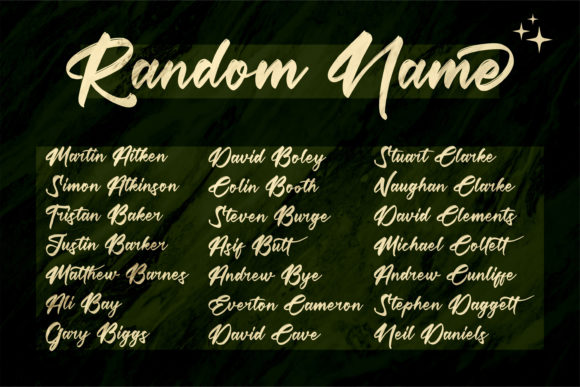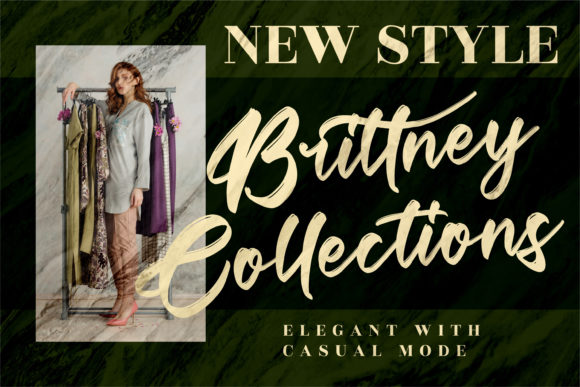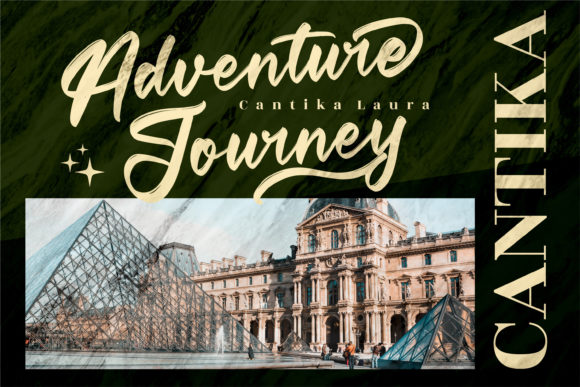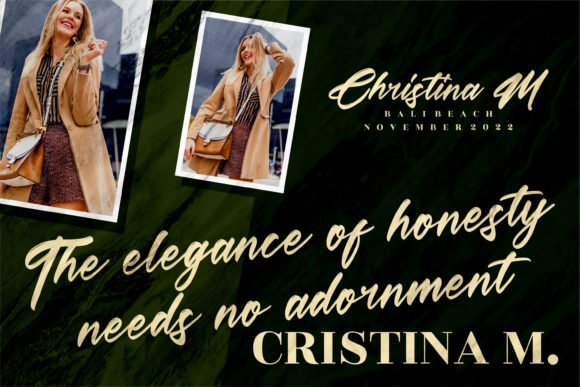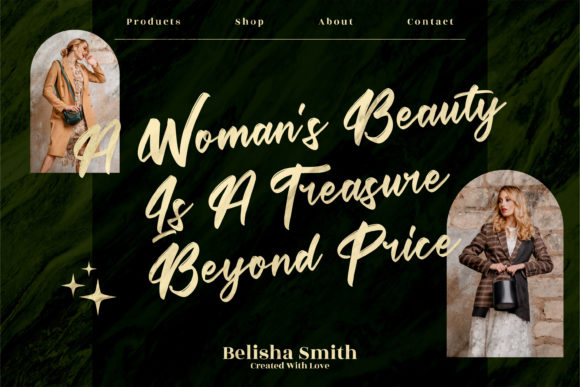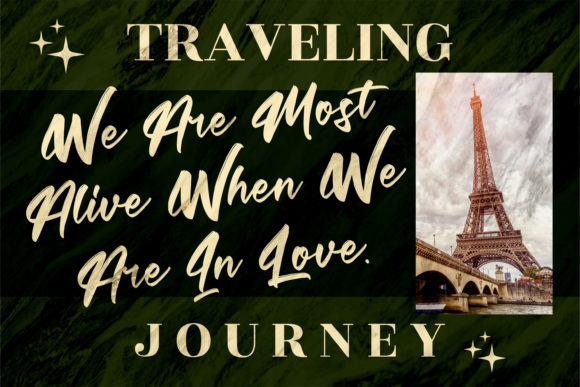
Futuristic Rottesla Font: Elevate Your Designs with Elegance and Sophistication
In the realm of typography, few fonts manage to convey the perfect blend of elegance, class, and modernity. Futuristic Rottesla is one such font that has captured the hearts of designers and crafters alike with its lovely and delicate brushed script style. This exquisite font is specifically crafted for individuals seeking to infuse their designs with a refreshing and sophisticated look. In this article, we’ll delve into the features, benefits, and uses of Futuristic Rottesla, and explore how it can elevate your creative projects.
A Font that Exudes Elegance and Class
Futuristic Rottesla boasts a unique, hand-brushed aesthetic that sets it apart from other script fonts. Its delicate strokes and fluid connections evoke a sense of refinement and luxury, making it an ideal choice for designs that require a touch of sophistication. Whether you’re working on a branding project, wedding invitation, or packaging design, Futuristic Rottesla is sure to leave a lasting impression.
One of the standout features of Futuristic Rottesla is its PUA (Private Use Area) encoding. This means that users can access all the glyphs and swashes with ease, allowing for greater flexibility and creativity in their designs. With PUA encoding, you can effortlessly navigate the font’s extensive character set, including ligatures, alternates, and ornaments, to create stunning text arrangements.
Futuristic Rottesla’s versatility makes it suitable for a wide range of design applications. Some of the most popular uses for this font include:
- Branding and Logo Design: Create a lasting impression with a custom logo that showcases your brand’s personality and style.
- Wedding and Event Stationery: Add a touch of romance and whimsy to your wedding invitations, save-the-dates, and other event materials.
- Packaging Design: Elevate your product packaging with a sophisticated and eye-catching design that sets your brand apart.
- Digital Media: Use Futuristic Rottesla in your social media graphics, blog headers, and other digital content to create a cohesive visual identity.
Why Choose Futuristic Rottesla?
With so many fonts available, why choose Futuristic Rottesla? Here are just a few reasons why designers and crafters love this font:
- Unique and Eye-Catching: Futuristic Rottesla’s distinctive style ensures that your designs will stand out from the crowd.
- Elegant and Sophisticated: This font exudes refinement and luxury, making it perfect for high-end designs.
- Easy to Use: With PUA encoding, accessing the font’s features is a breeze.
- Versatile: Futuristic Rottesla can be used in a wide range of design applications, from branding to digital media.
Tips for Using Futuristic Rottesla
To get the most out of Futuristic Rottesla, here are a few tips to keep in mind:
- Experiment with Font Sizes: Futuristic Rottesla looks stunning in a variety of font sizes, from large headings to smaller body text.
- Play with Swashes and Glyphs: Take advantage of the font’s PUA encoding to add unique touches to your designs.
- Pair with Complementary Fonts: Combine Futuristic Rottesla with other fonts to create a cohesive visual identity.
In conclusion, Futuristic Rottesla is a truly exceptional font that offers a perfect blend of elegance, sophistication, and modernity. With its PUA encoding, delicate brushed script style, and versatility, this font is sure to become a staple in any designer’s collection. Whether you’re working on a branding project, wedding invitation, or packaging design, Futuristic Rottesla is the perfect choice for adding a touch of refinement and luxury to your creations.